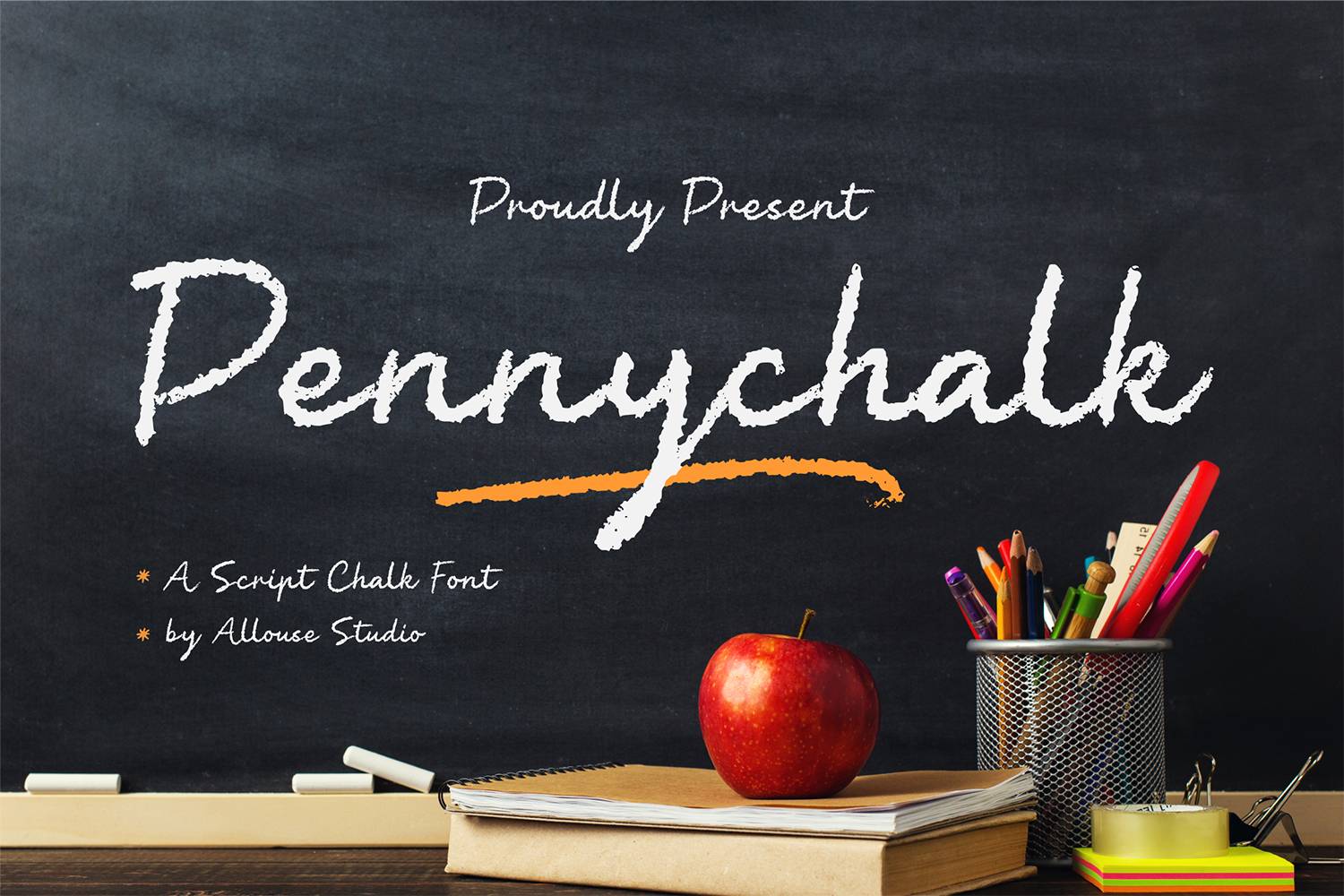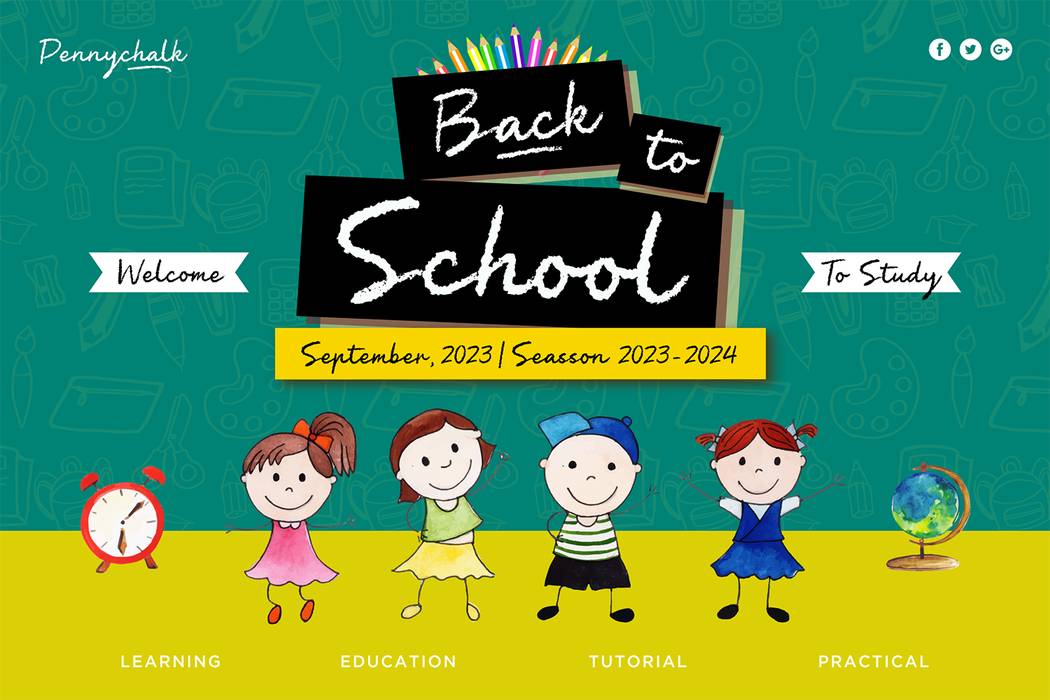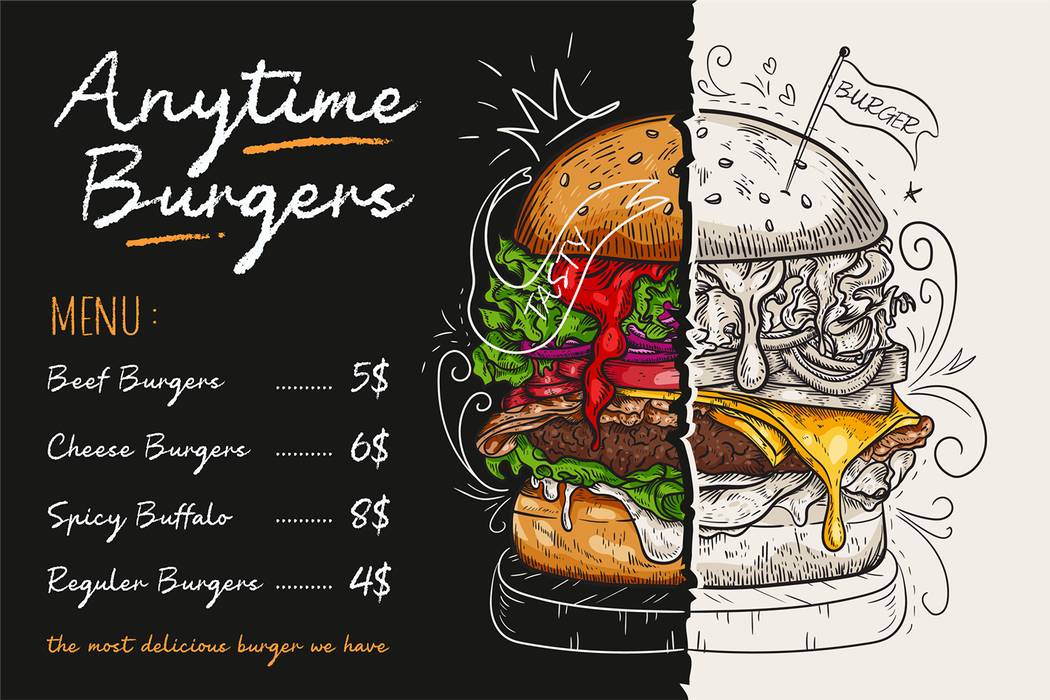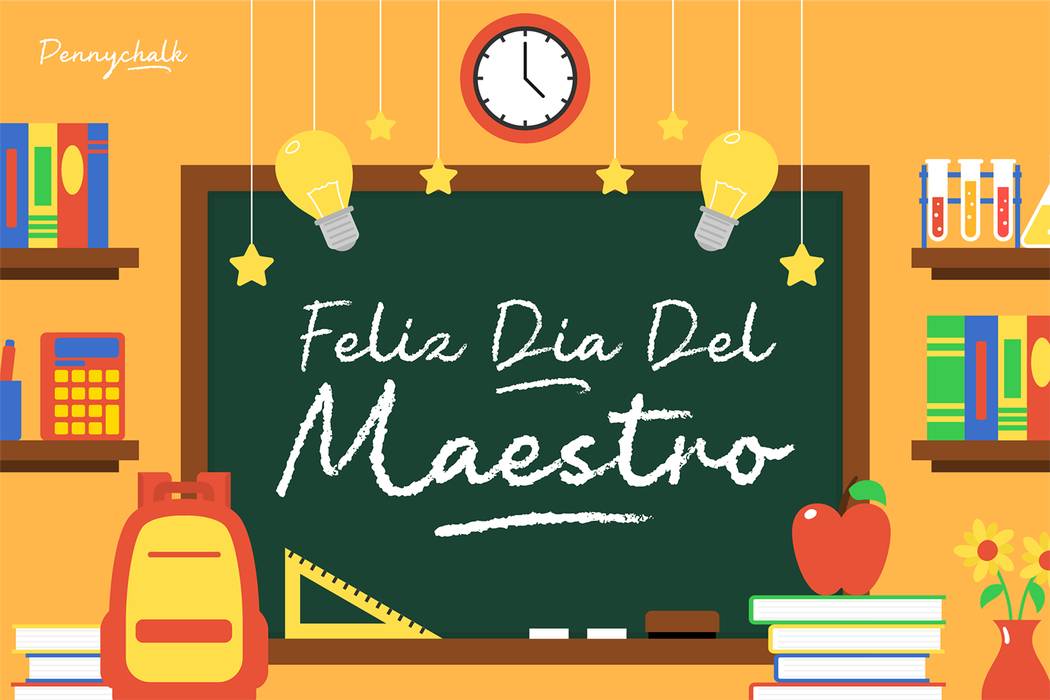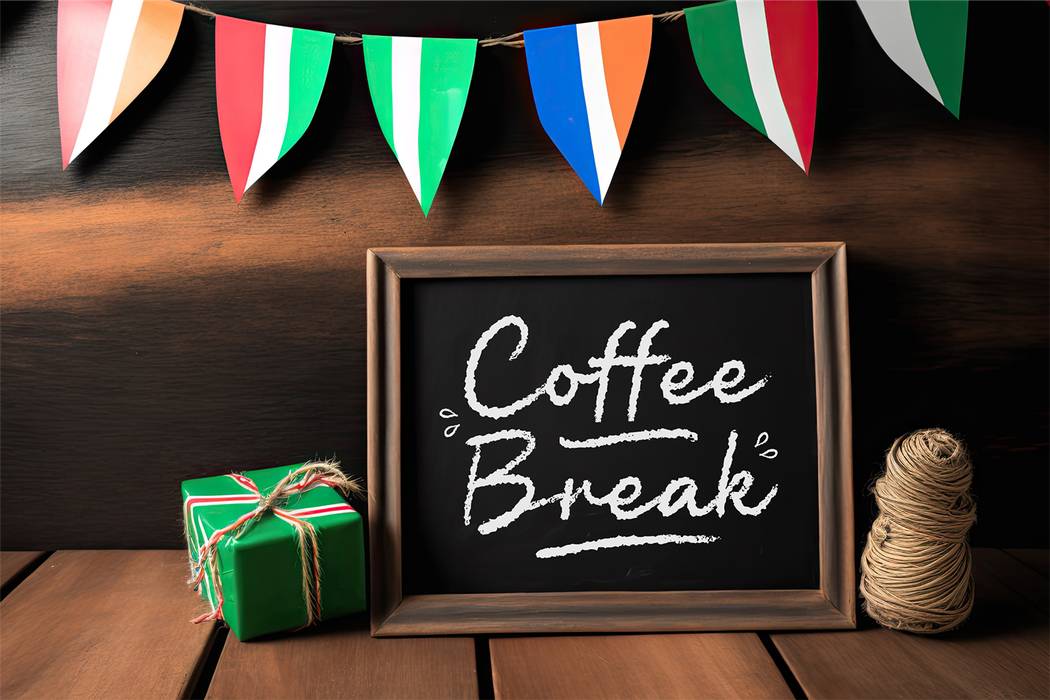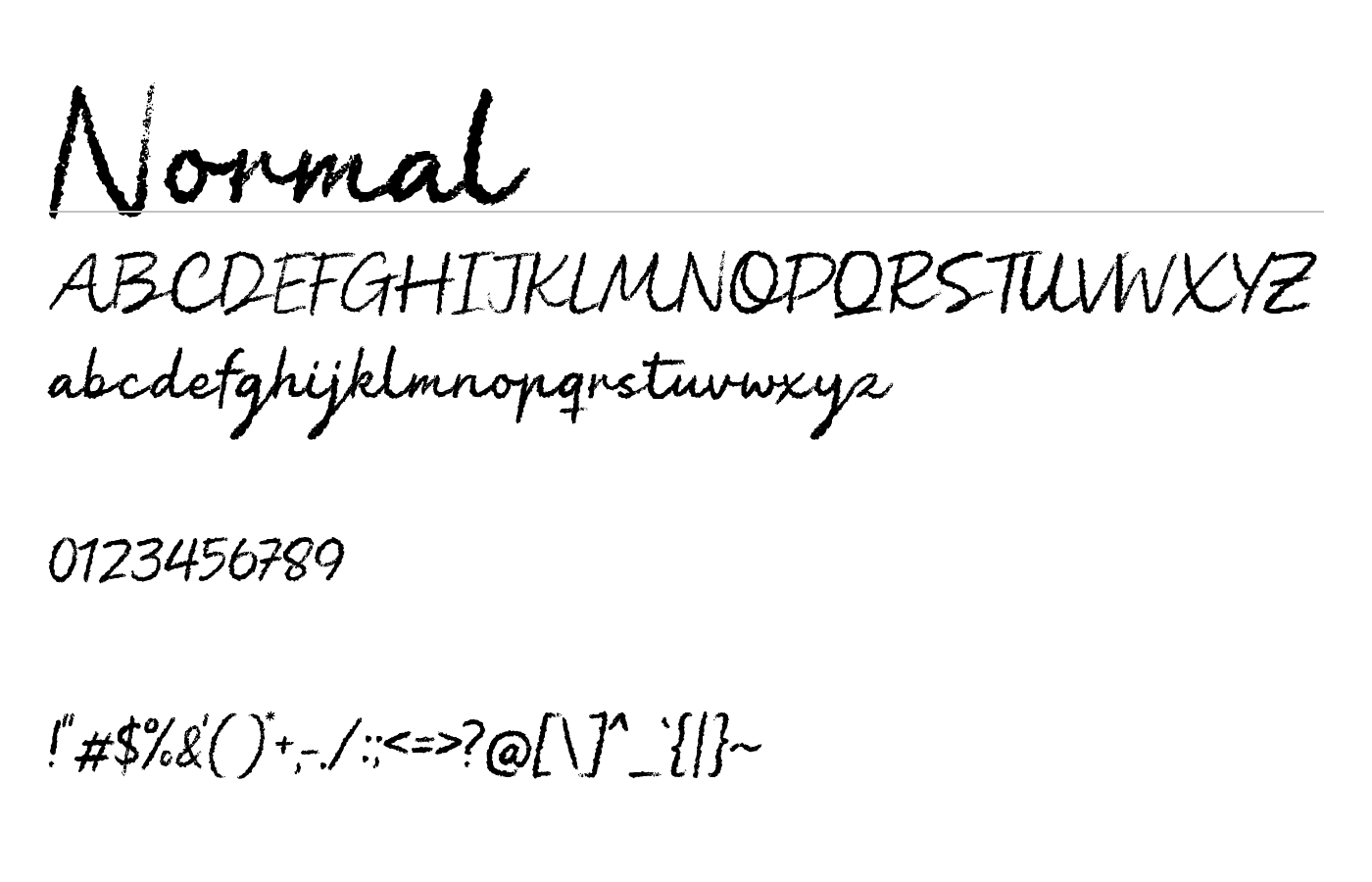
Pennychalk is a casual, handwritten-style font that mimics the textured, slightly rough look of chalk on a blackboard. It features slender, flowing letterforms with a natural, informal feel, making it ideal for creative projects that seek a personal or playful touch. This font works well in designs like educational materials, informal branding, or playful headlines where a warm, approachable vibe is desired.
Pennychalk Font
About Pennychalk Font